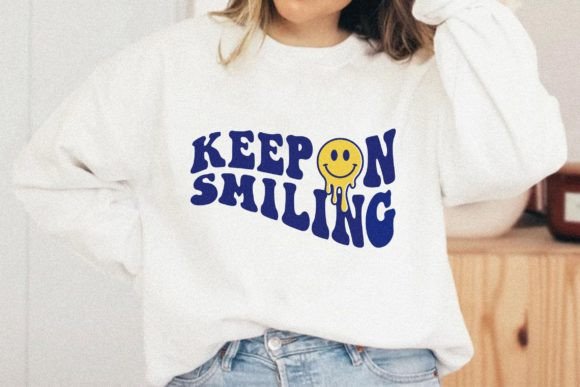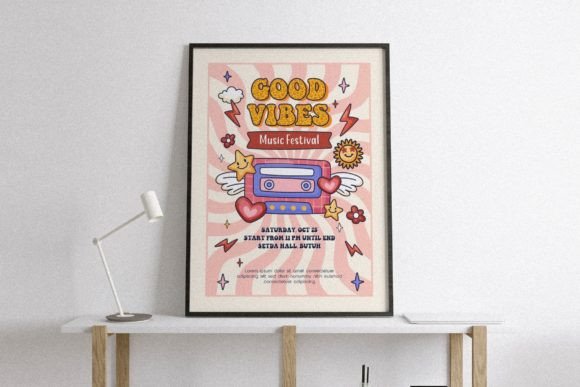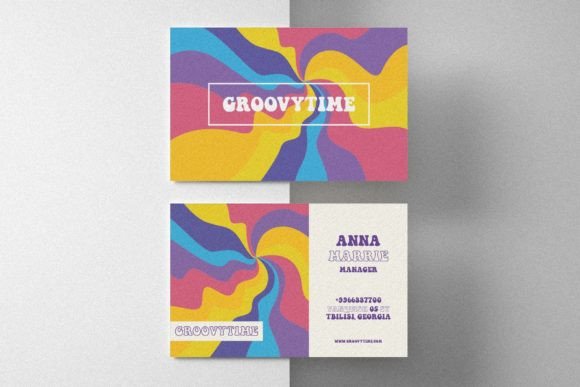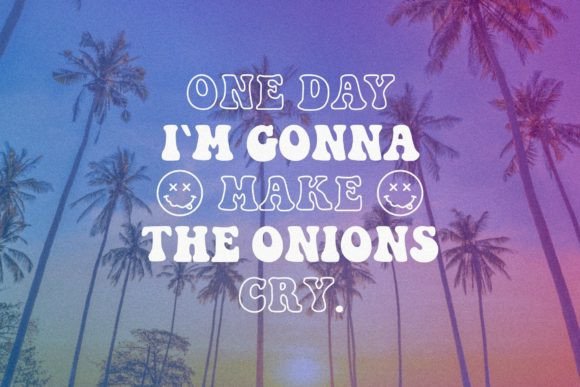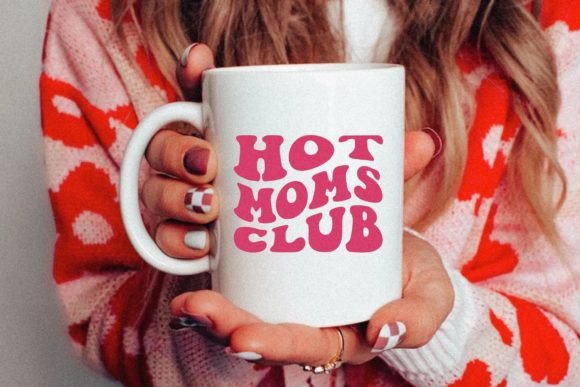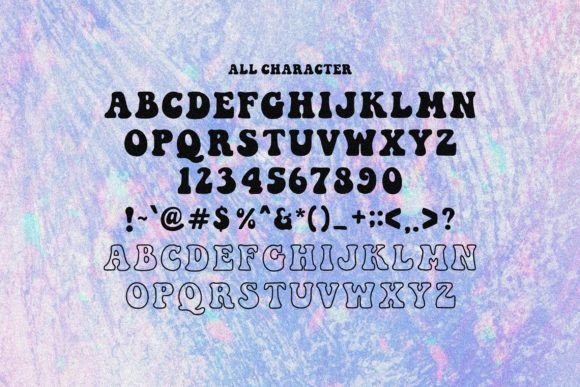
Introduction to Muse Groovy Font
Muse Groovy is an exquisite, hand-drawn, bubbly serif font with a groovy look, masterfully designed to become a true favorite.